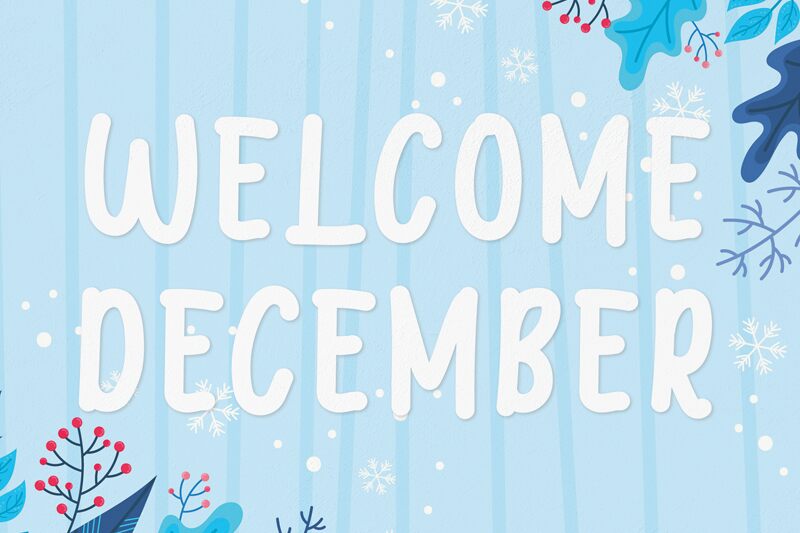
Welcome December
special creative products for you, our products will give you an extraordinary experience.
the latest style letters are perfect for wall displays, wedding invitations, social media post logos,
advertisements, product packaging, product designs, labels, photography, watermarks, invitations, stationery,
and any project that requires taste handwriting.
special creative products for you, our products will give you an extraordinary experience.
the latest style letters are perfect for wall displays, wedding invitations, social media post logos,
advertisements, product packaging, product designs, labels, photography, watermarks, invitations, stationery,
and any project that requires taste handwriting.